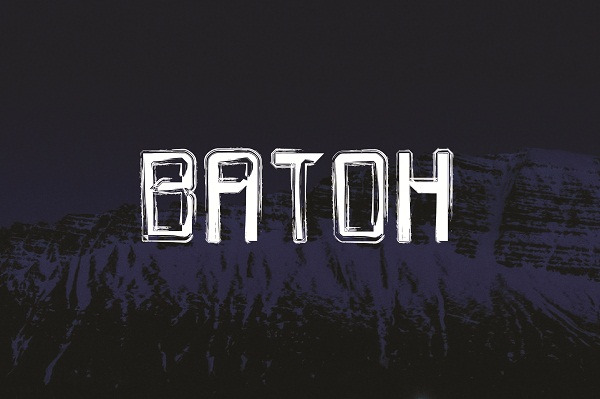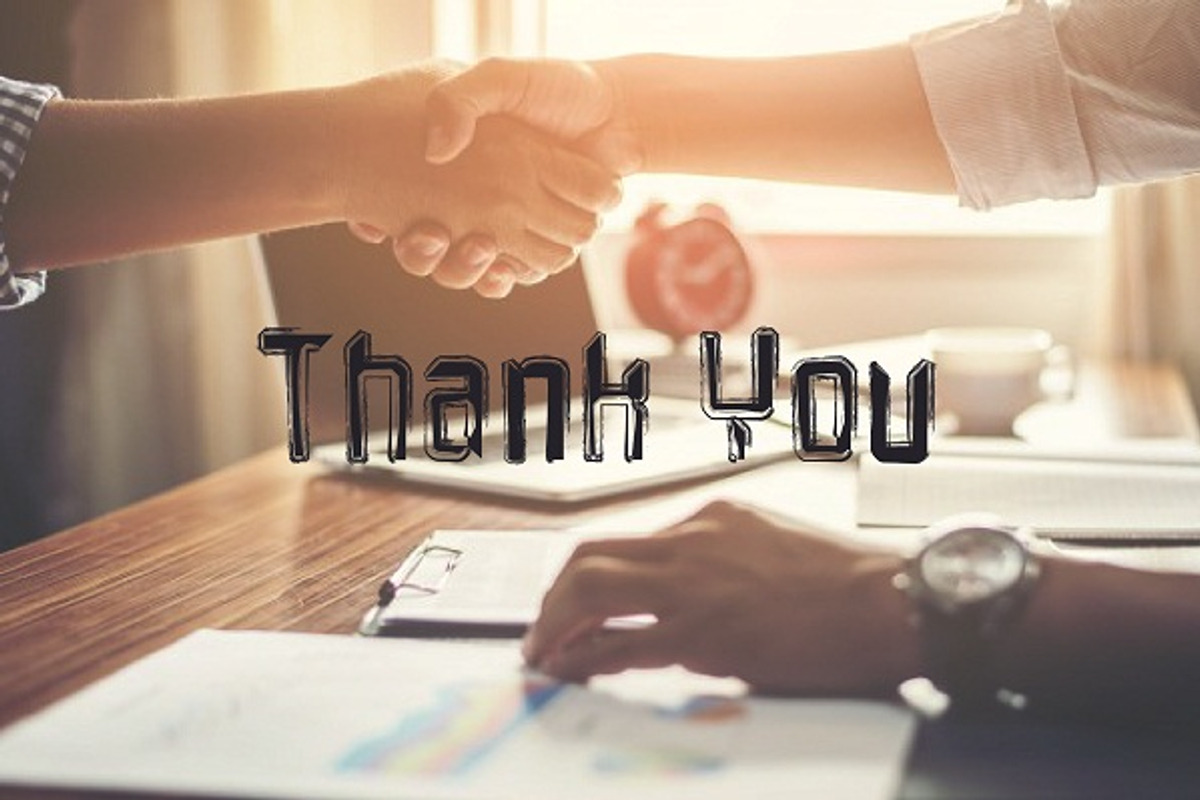
Batoh font
Take your design game to the next level with a hyper realistic font that truly looks hand painted. Pure Heart uses brand new technology that makes way for more authentic looking fonts and is sure to grab the attention of customers and designers alike. Each letter was carefully painted dozens of times until deemed perfect, and then edited to get the texture absolutely perfect. Buy Batoh Font today and be on the cutting edge of new font technology. So how does it work? Instead of vectorizing the letters, Batoh Font uses actual images and transparency effects in order to get the quality that you see. Batoh Font installs like any other font, and can be used in any color, on any background.